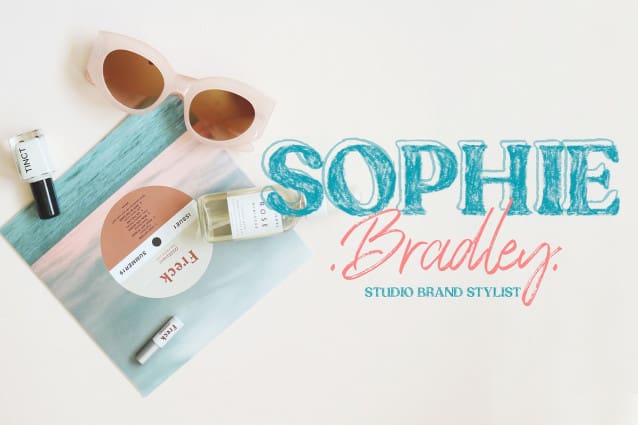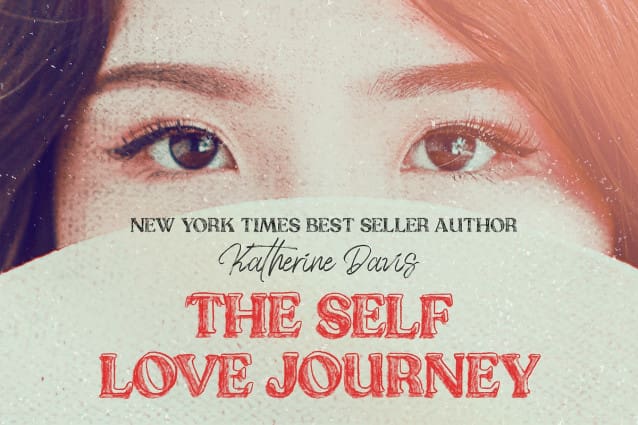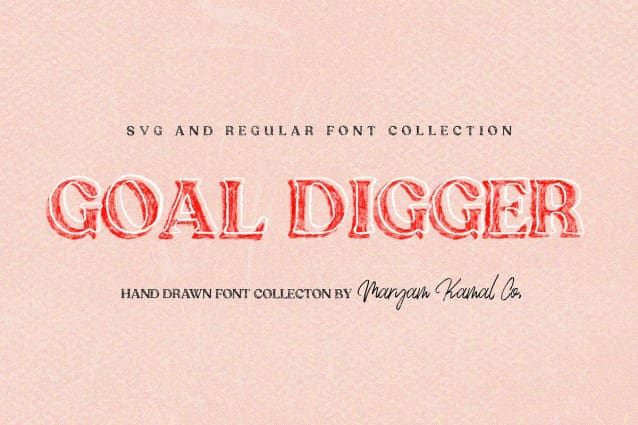
Goal Digger Font
Goal Digger Font collection! A super textured hand drawn Filled and Outline letters available in SVG and Regular. I had soo much fun drawing with crayons and had major childhood flashbacks while creating this!
The Goal Digger Collection was designed to be rich in texture with a sweet vintage twist. Including 13+ stylish crayon swashes to vamp up your designs, With built-in Opentype features, this font comes to life as if you’ve hand-drawn it yourself!